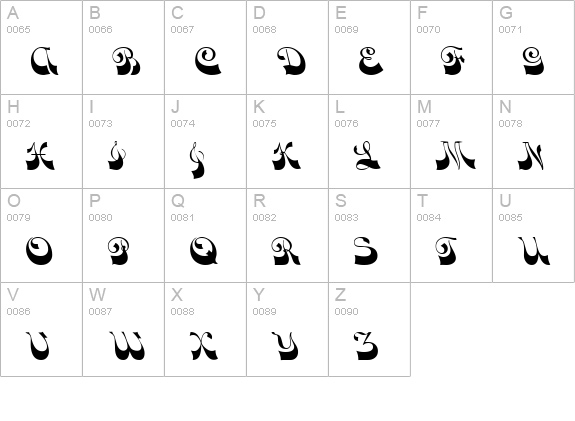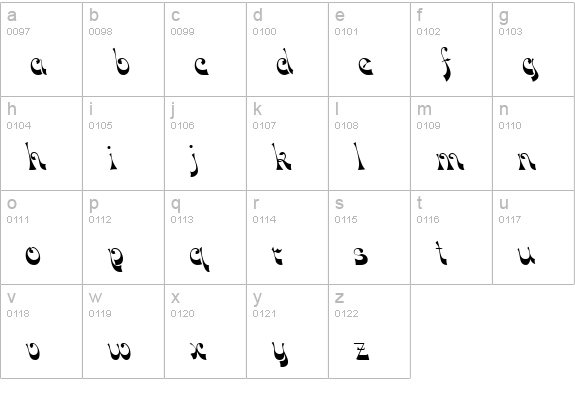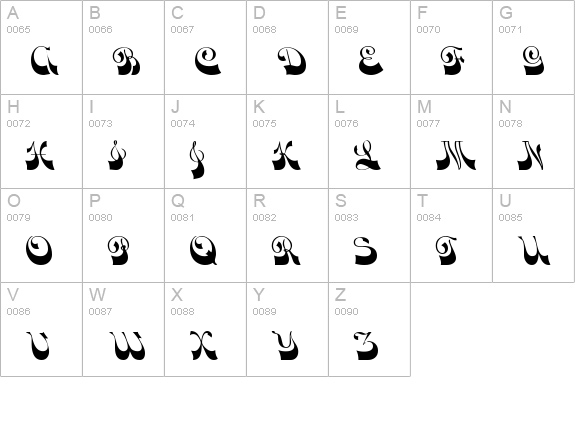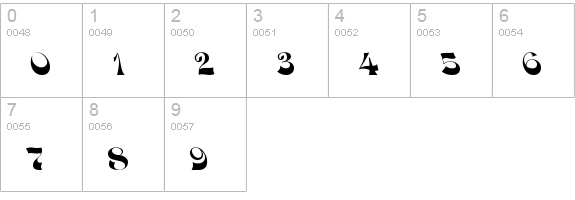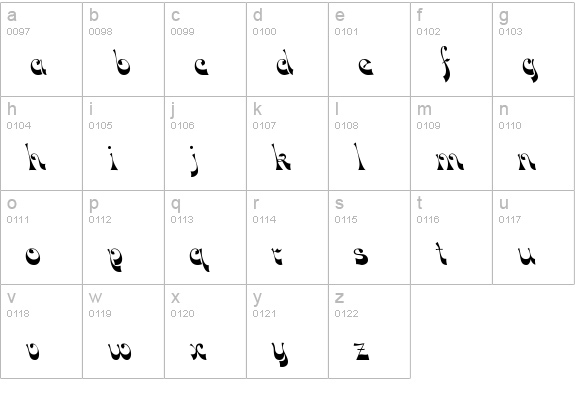
Funky Face Regular is the standard, neutral variant in the Funky typeface family \xE2\x80\x94 well suited to general body text, paragraphs, and standard typographic work.
Introducing Funky Face Regular font, a fun and quirky typeface perfect for adding a playful touch to your designs. This font features unique and eye-catching letterforms that are sure to make your projects stand out. With its funky and energetic vibe, Funky Face Regular is ideal for posters, branding, social media graphics, and more. Best of all, Funky Face Regular font is completely free to download at FontsMarket.com. Don't miss out on the opportunity to add this dynamic font to your collection and unleash your creativity with its bold and expressive style. Download now and let your designs pop with personality!